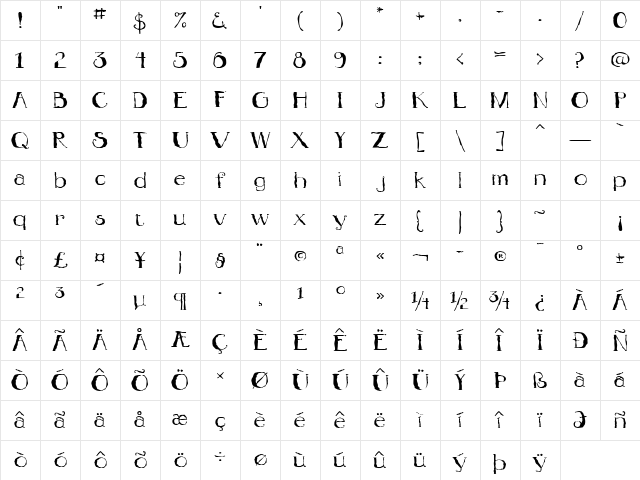
Jitterbug ICG Regular
Design Context for Jitterbug ICG
Jitterbug ICG is a composed and adaptable typeface that performs quietly and consistently across a wide range of design contexts.
Pro Tip: Use Jitterbug ICG in both headline and body roles to test its range before committing to a single application.